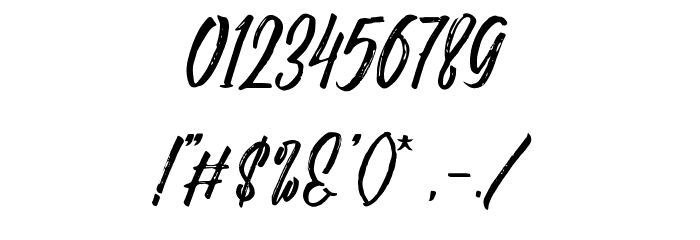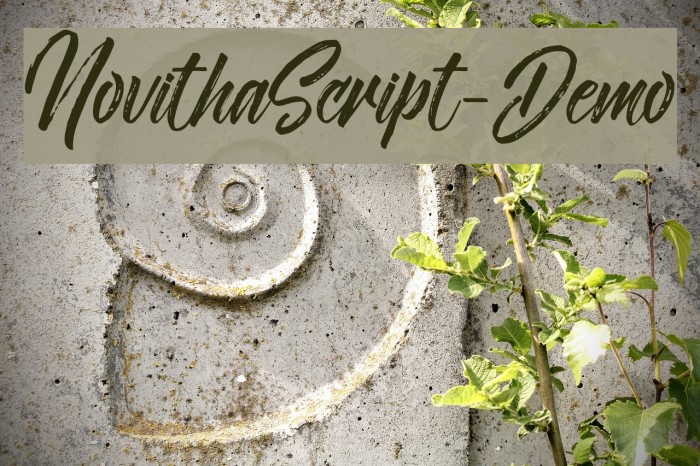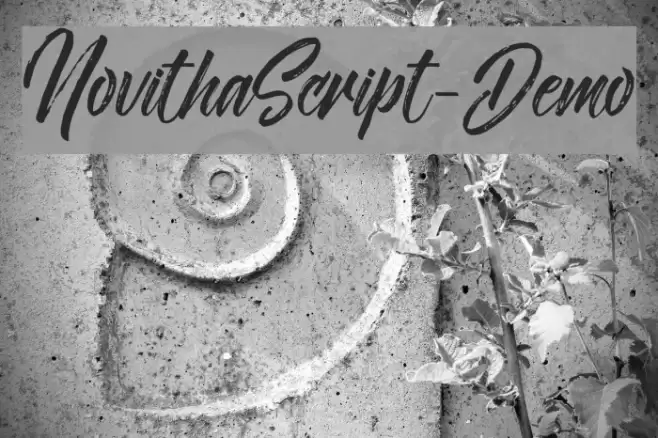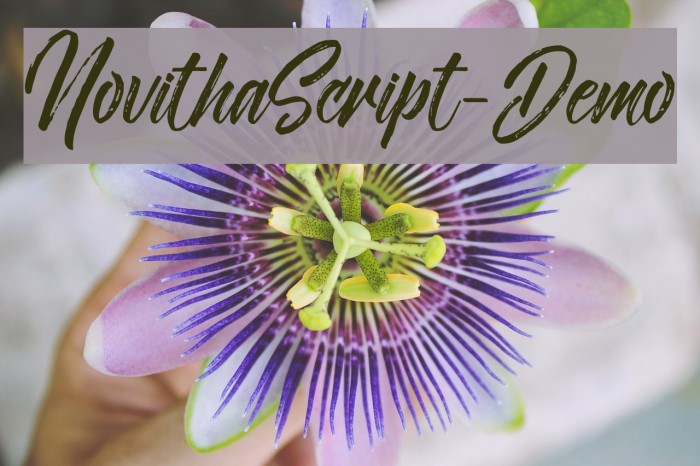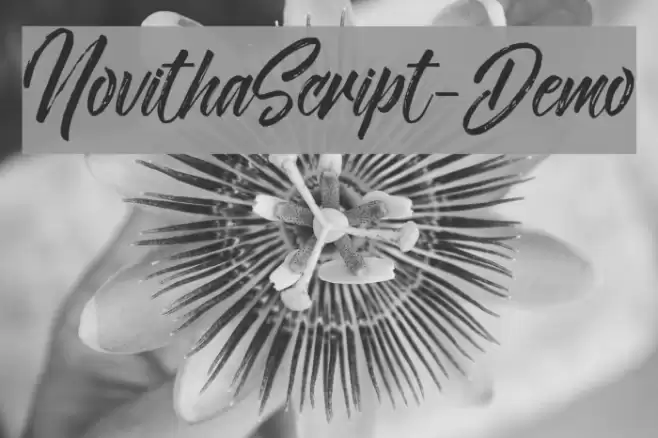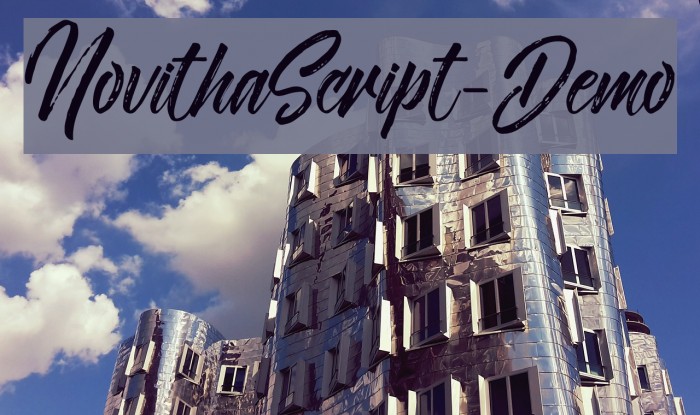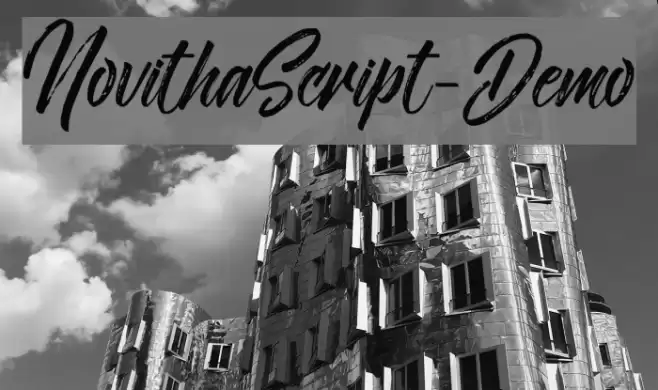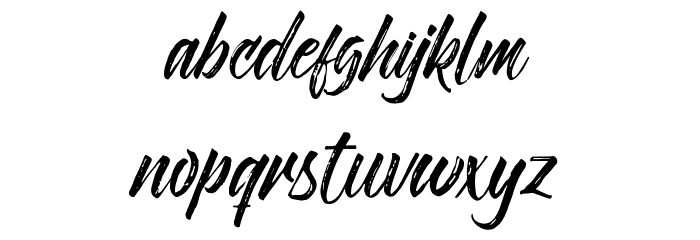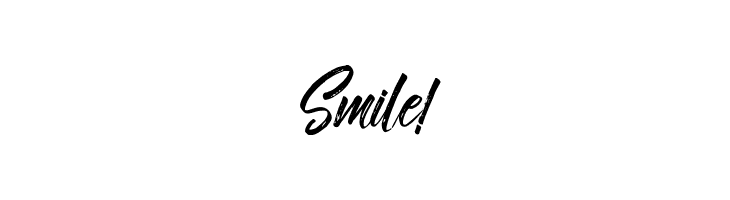
NovithaScript-Demo Font
NovithaScript-Demo Description
This font exhibits a dynamic and expressive script style, characterized by its fluid, cursive strokes and elegant flourishes. The letters are interconnected, creating a sense of continuity and movement. The uppercase letters are bold and prominent, while the lowercase letters maintain a graceful flow. The numbers and special characters are designed to complement the overall script style, ensuring consistency across all elements. The font's artistic flair makes it suitable for creative and decorative applications, adding a personal touch to any design.
A dynamic and expressive script font with fluid, cursive strokes and elegant flourishes from Uncategorized fonts.
• Contrast: High
• Overall Style: Decorative